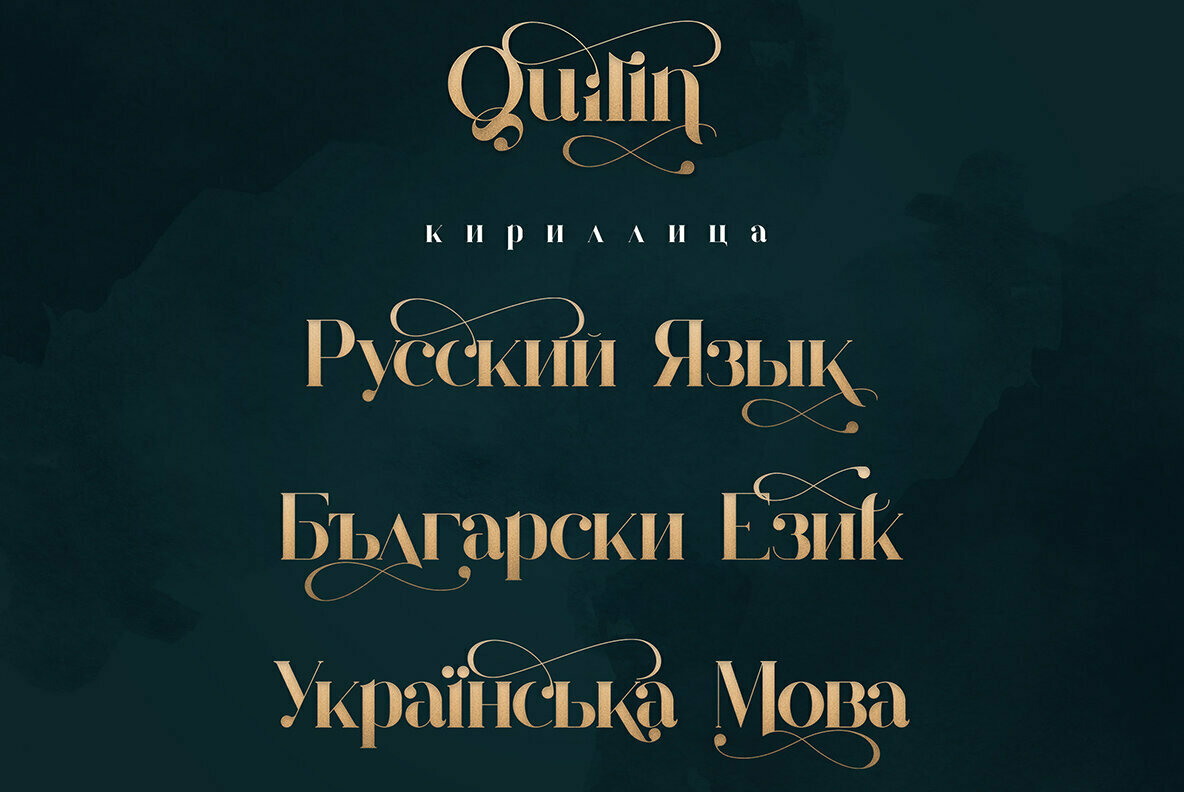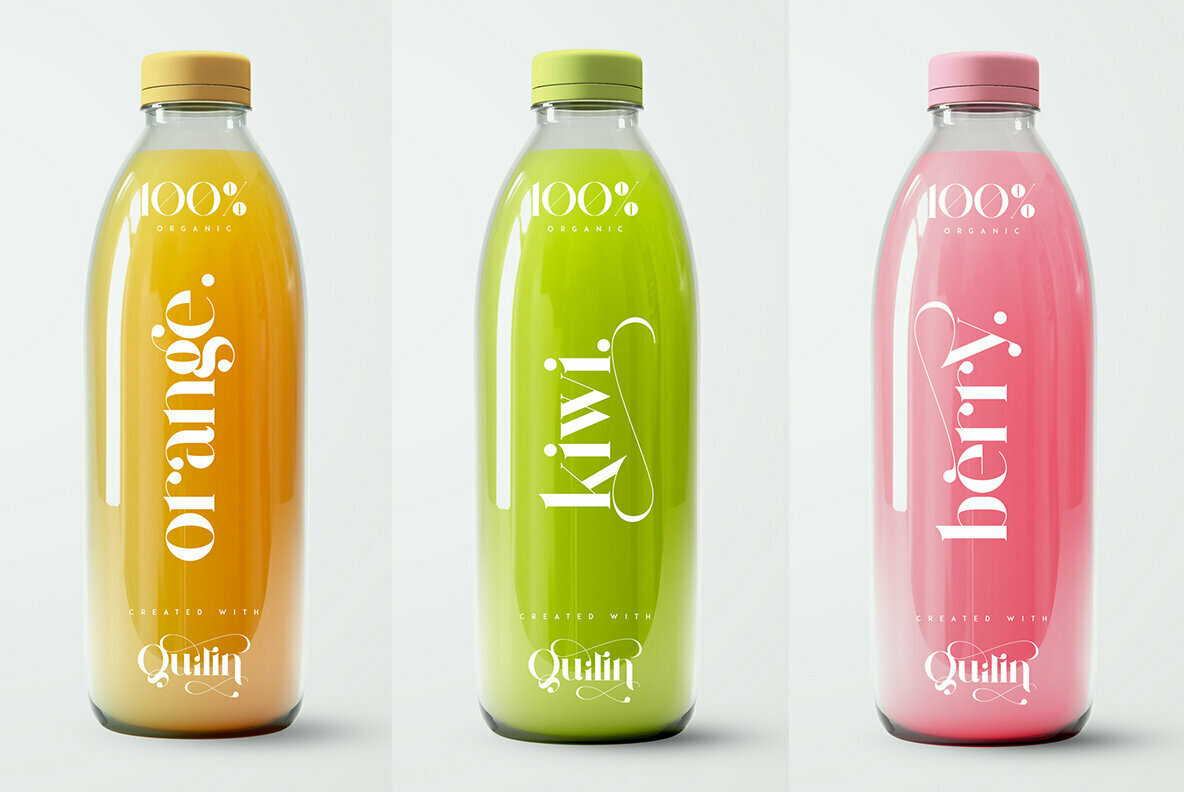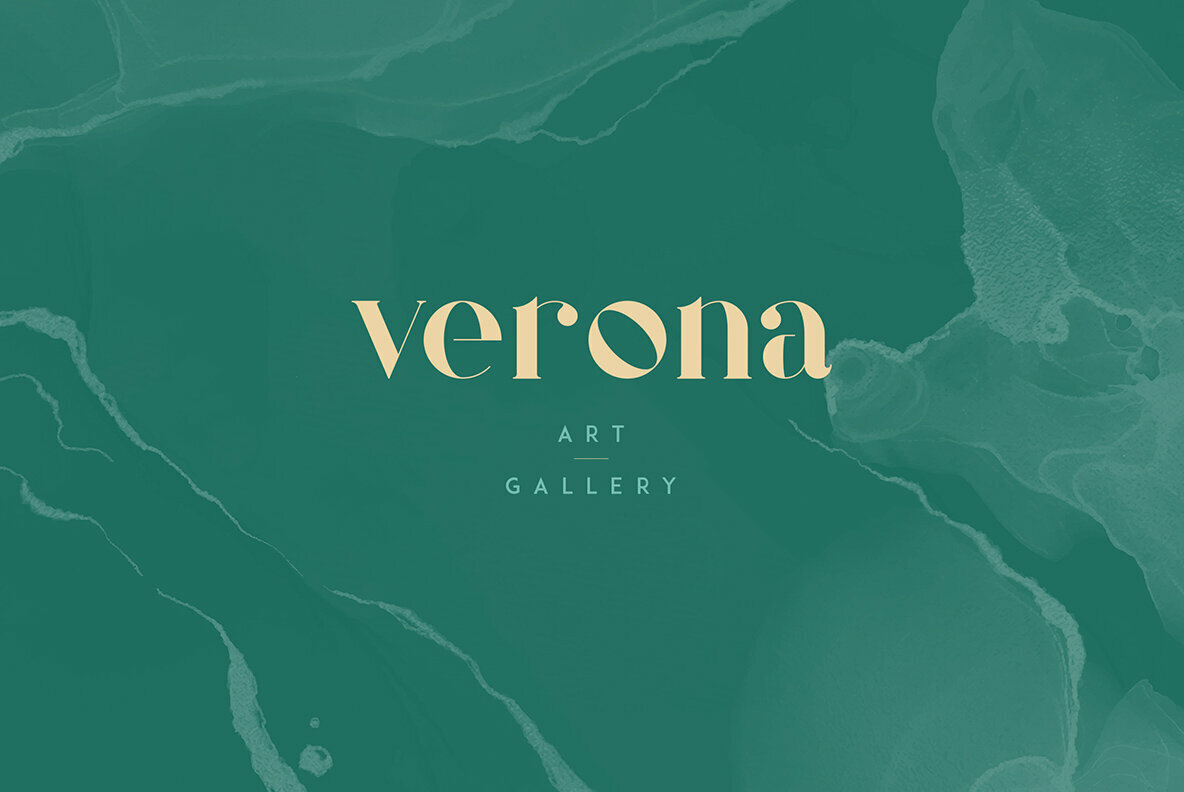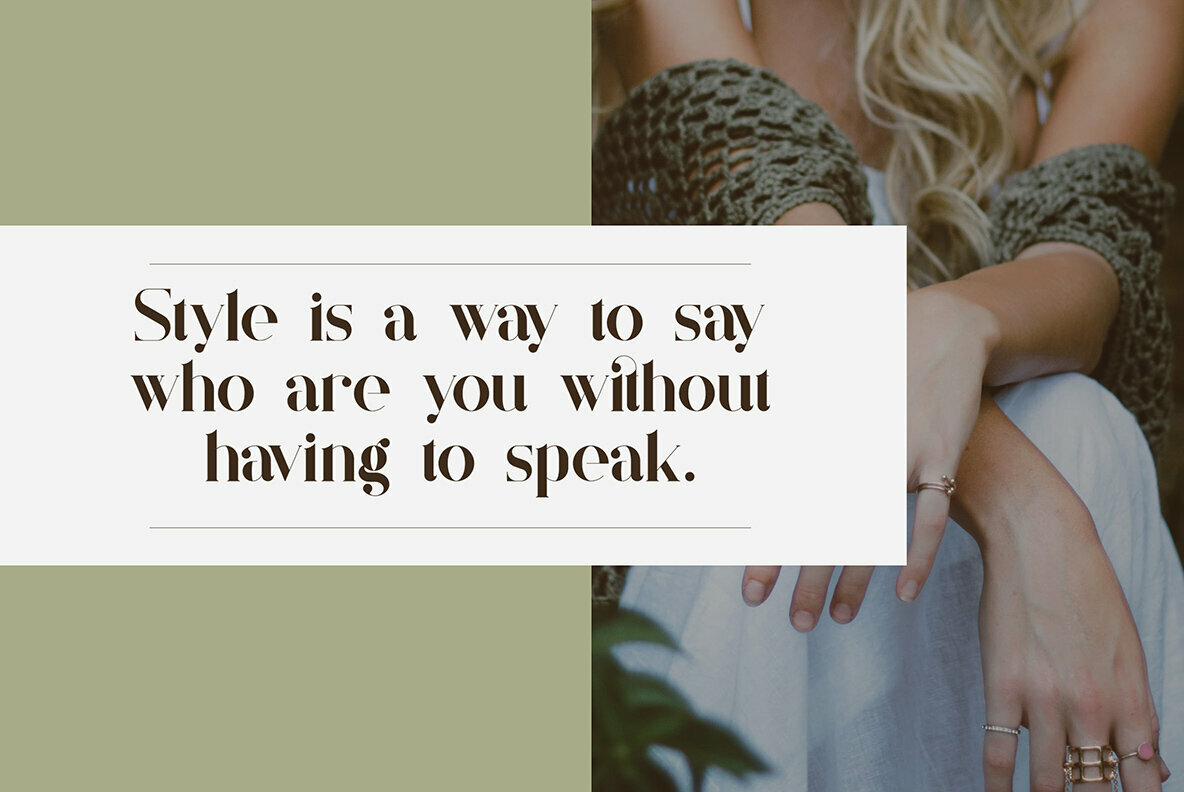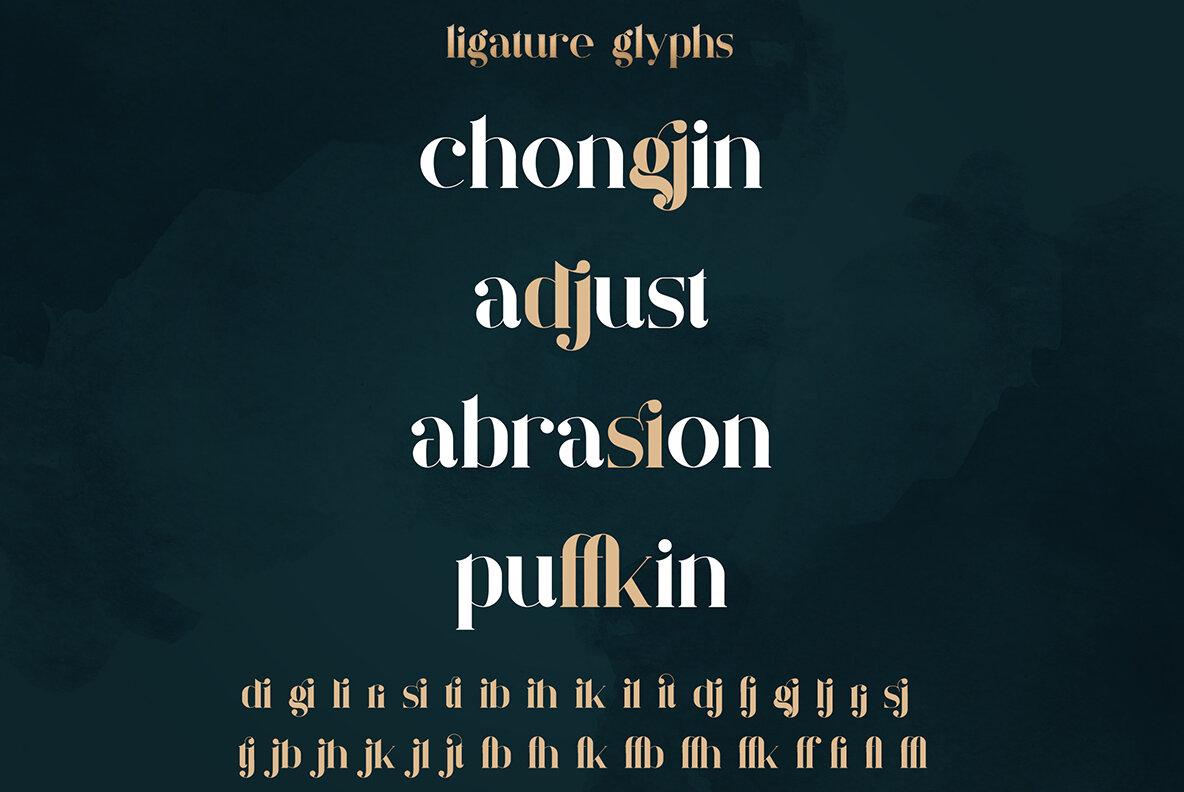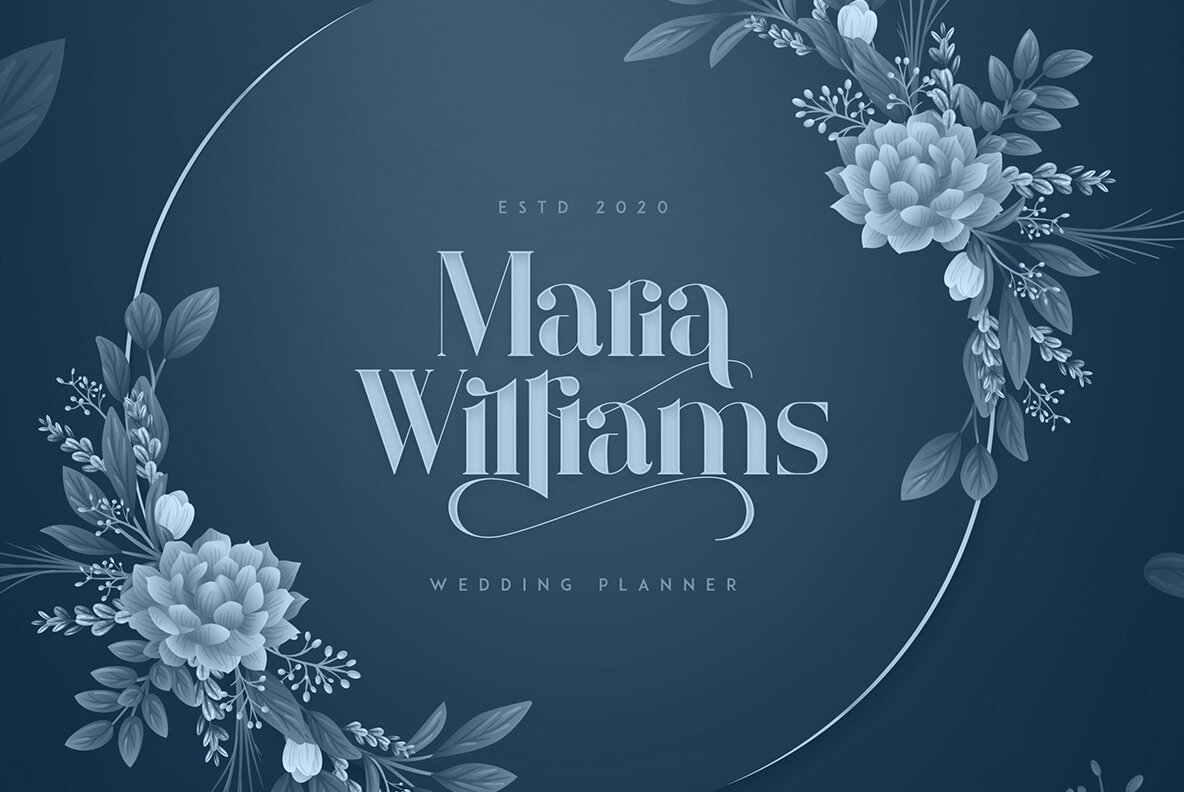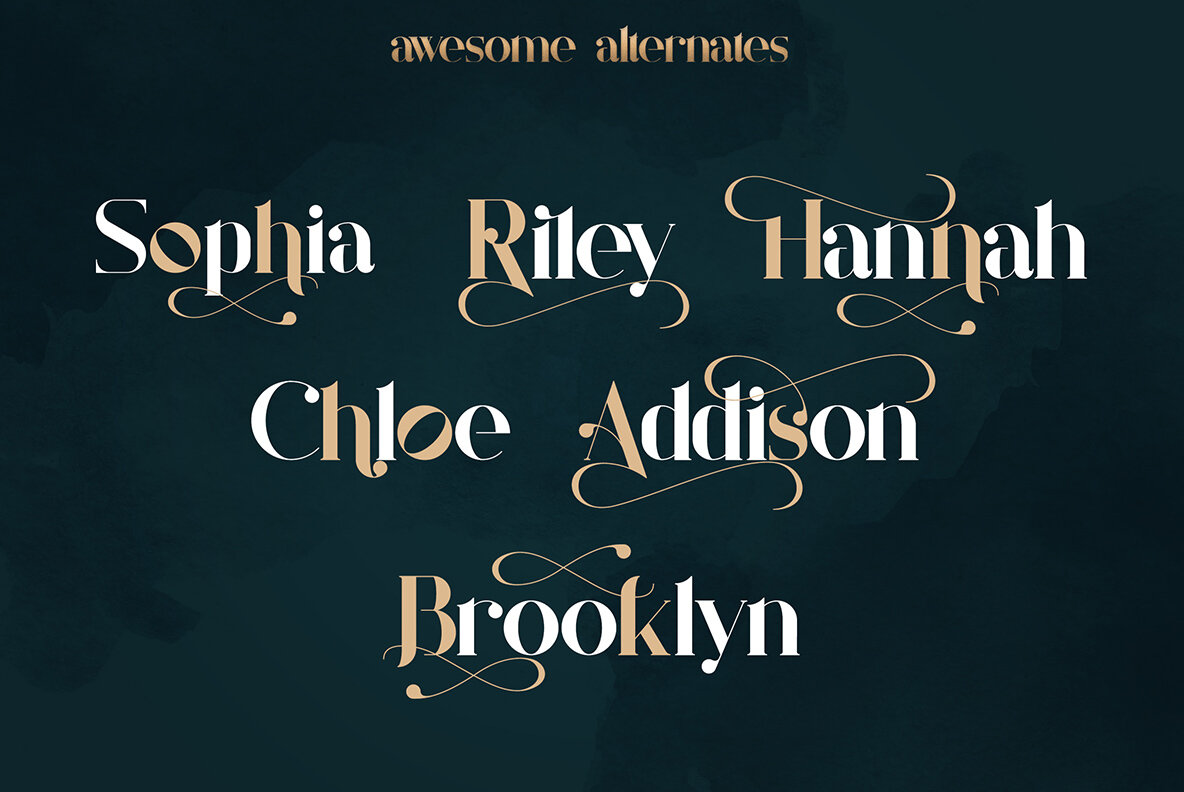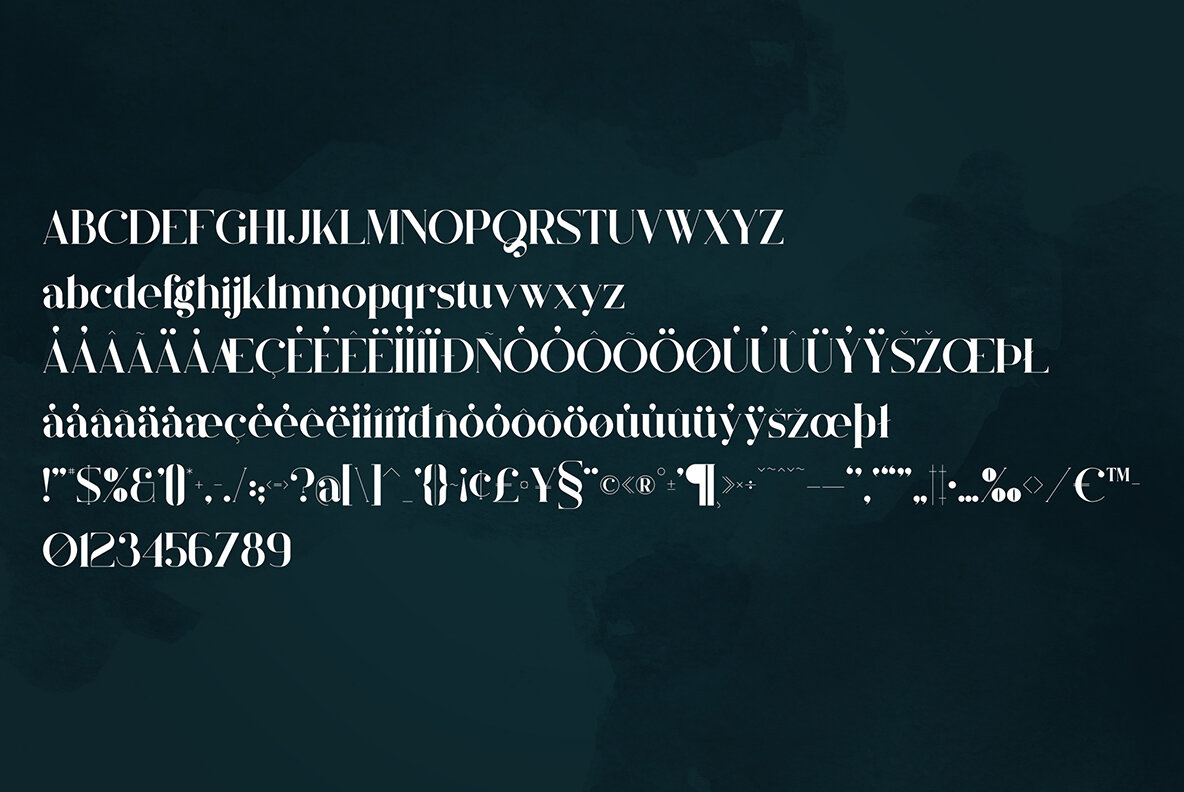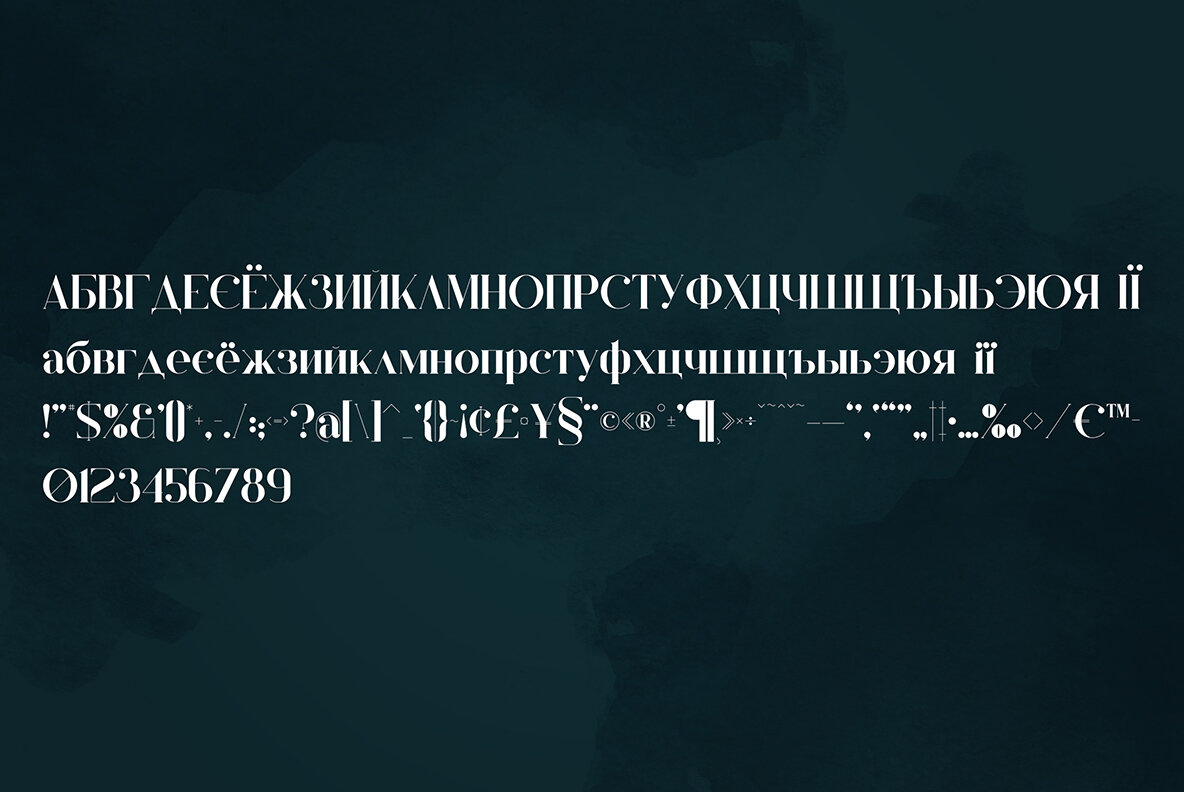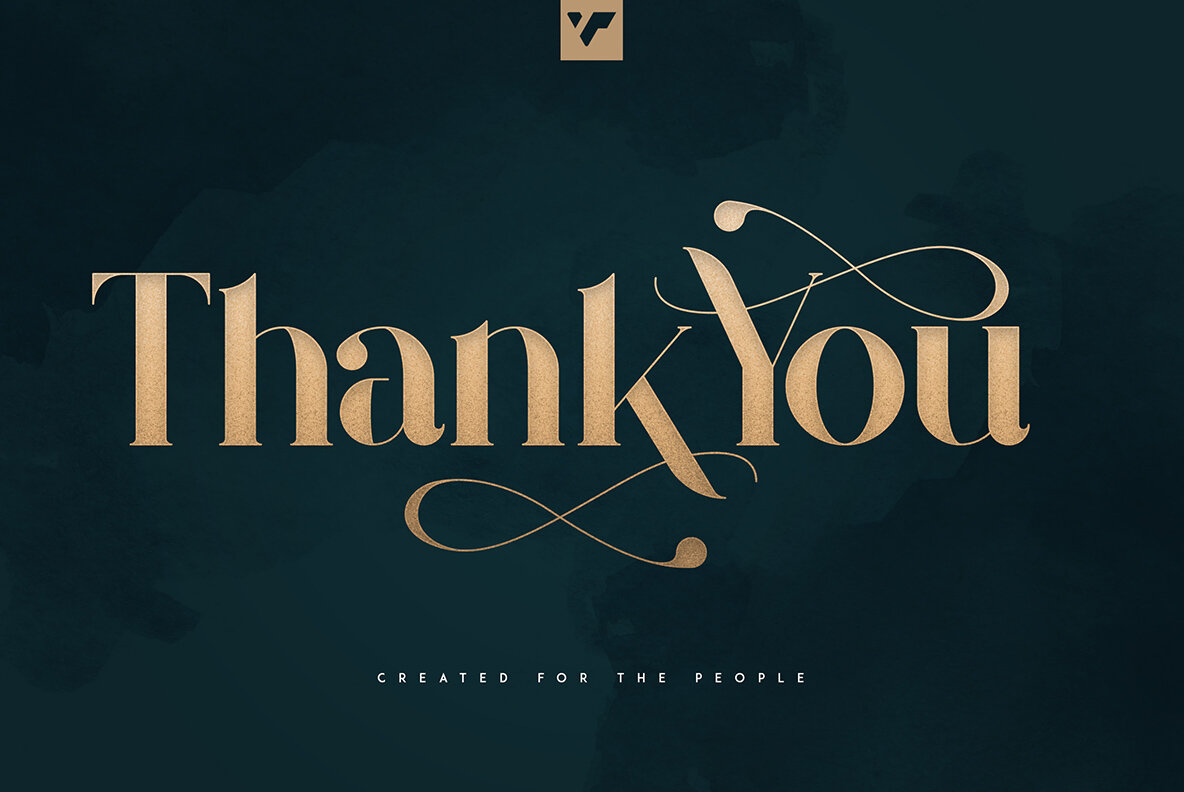
Quilin Font
Quilin
Discover the elegance of Quilin, a luxury serif font offering both Latin and Cyrillic alphabets. Perfectly suited for a variety of design contexts, Quilin combines vintage charm with modern versatility. Its alternate glyphs and ligatures provide a rich typographic palette, making it ideal for both bold headers and refined body text.Quilin: A Luxurious Vintage Typeface
Quilin is perfect for branding projects, product packaging, or magazine headers, providing a sophisticated visual statement in any context.